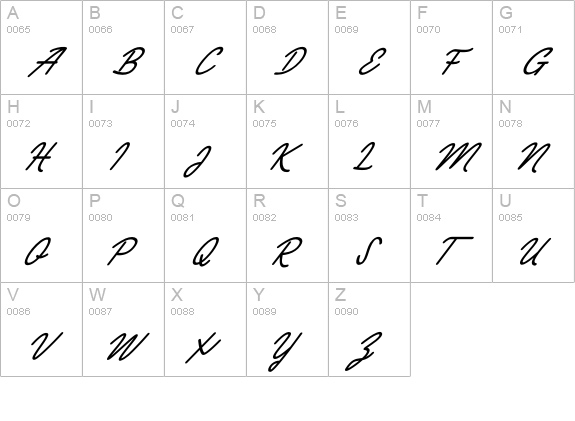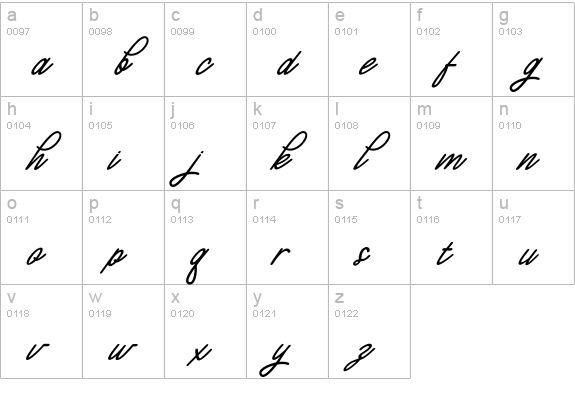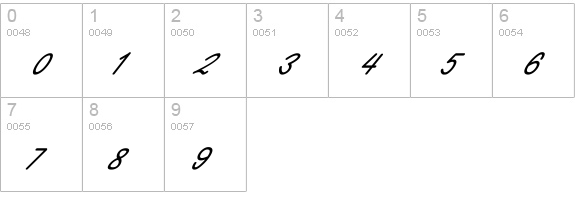
Monalisa Script Modern Font Details
Monalisa Script Modern is a free for personal use font in the Script > Handwritten category, designed by axara creative. It has been downloaded 103 times and is available for Windows, Mac and Linux.
Monalisa Script Modern font is a stunning and elegant typeface that exudes sophistication and charm. Its flowing script style adds a touch of grace to any project, making it perfect for invitations, branding, and other design projects. The font features delicate curves and flourishes that give it a timeless and luxurious feel.